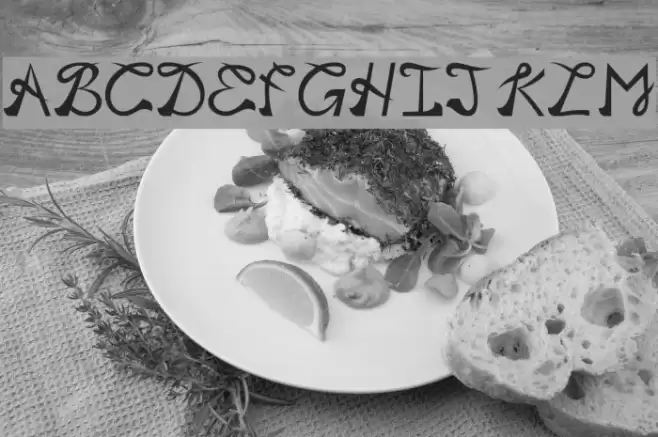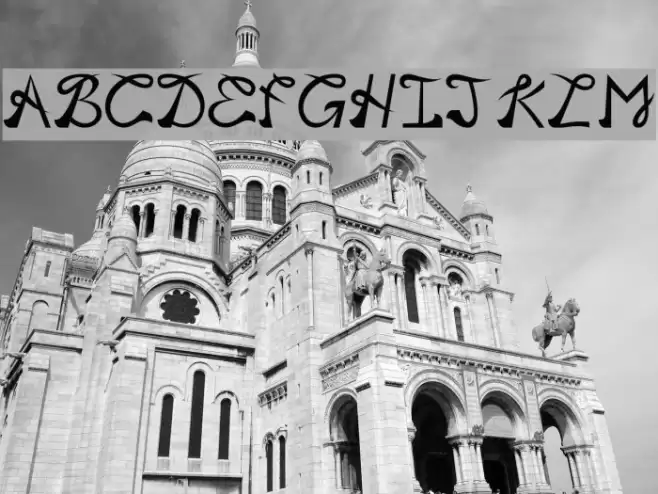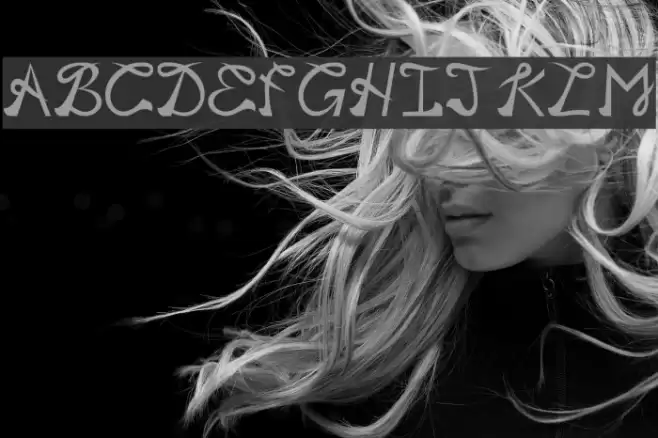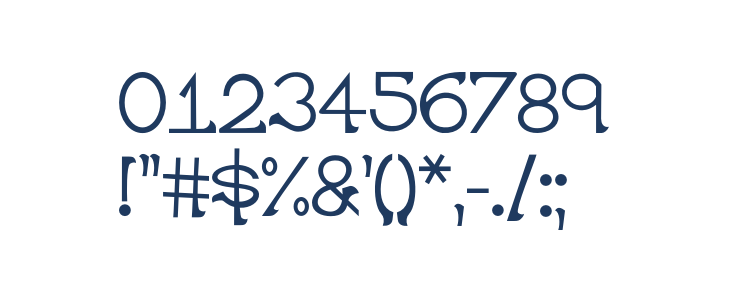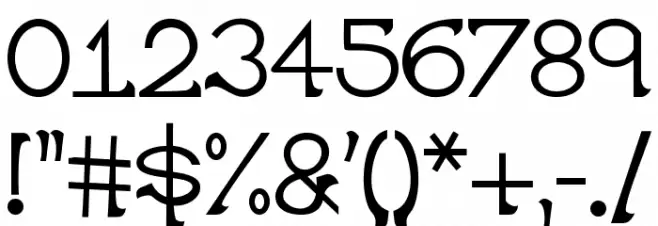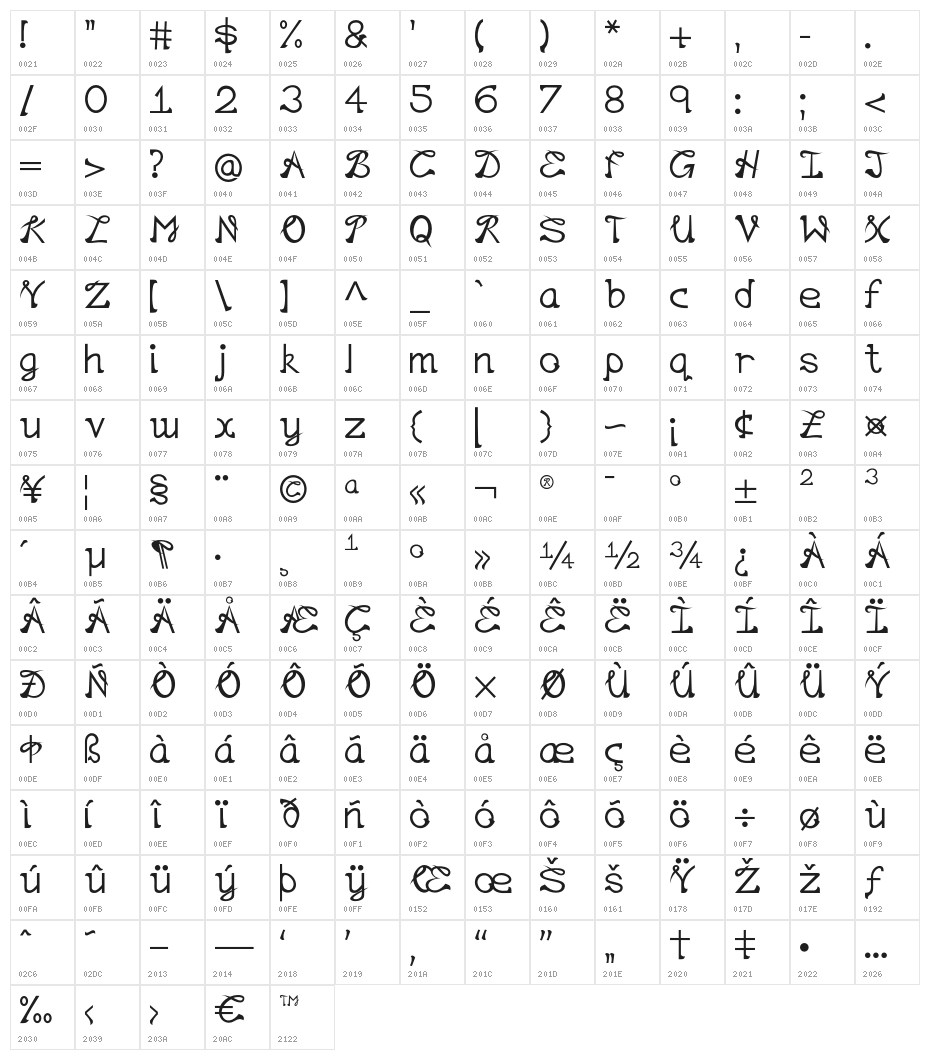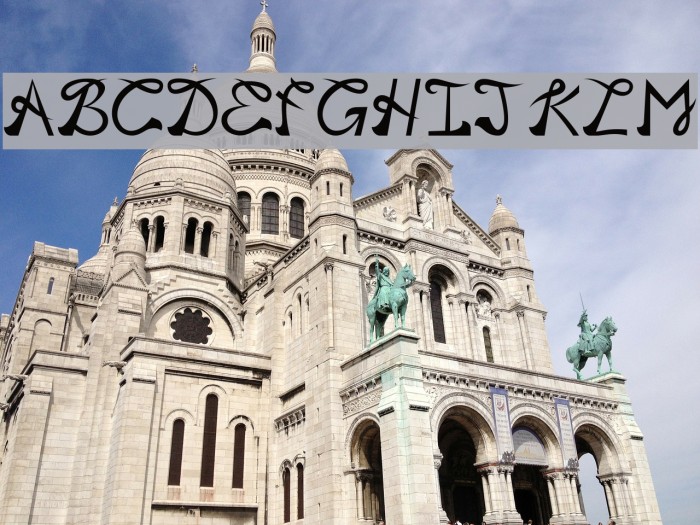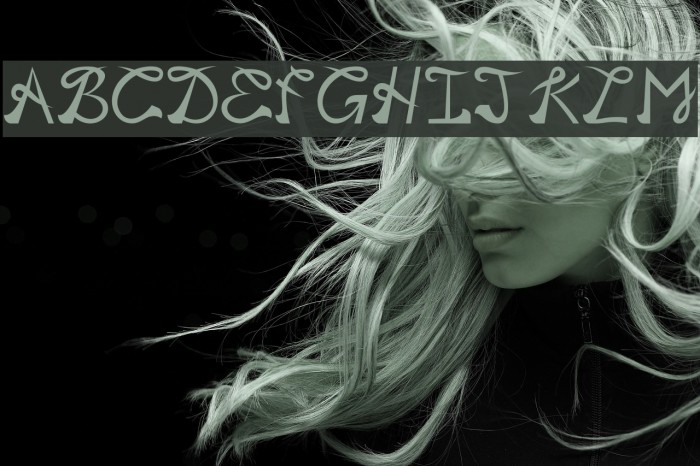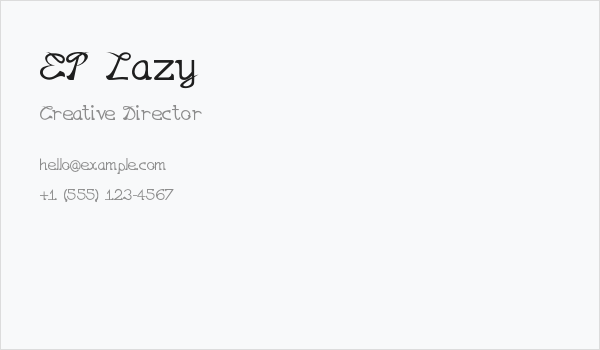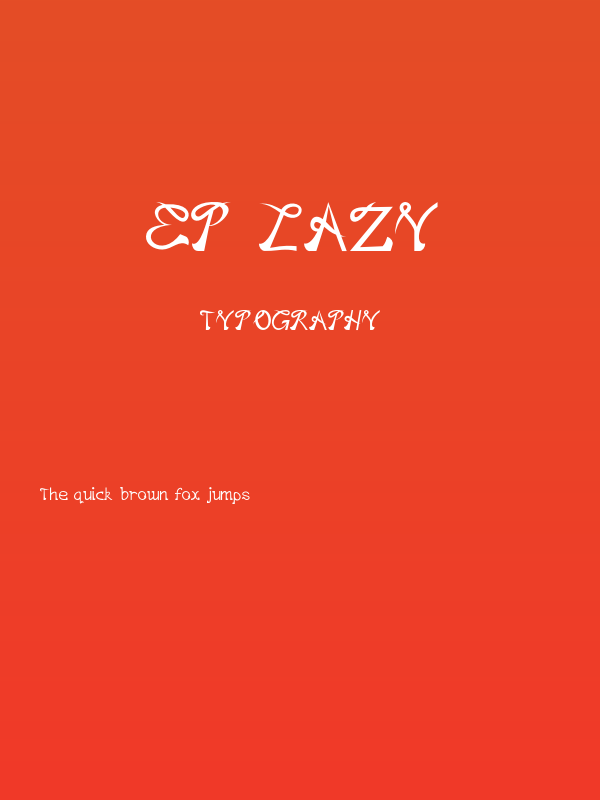
EP Lazy Font
EP Lazy Description
This font features a unique blend of calligraphic and modern elements, characterized by its flowing, cursive-like strokes and sharp, angular edges. The uppercase letters exhibit a distinct flair with exaggerated serifs and swashes, creating a sense of elegance and movement. The lowercase letters maintain a more restrained style, with rounded forms and subtle curves, providing a harmonious balance. The numerals are bold and clear, with a slight slant that adds to the dynamic feel of the typeface. Special characters are intricately designed, maintaining the overall aesthetic with a touch of whimsy. This font is versatile, suitable for both formal and creative applications, making it ideal for projects that require a touch of sophistication and artistic flair.
A dynamic font combining calligraphic elegance with modern angularity from Uncategorized fonts.
- Proposed Projects: Ideal for wedding invitations, branding, logo design, and editorial headings.
- Use Case: Headlines, Logos, Invitations